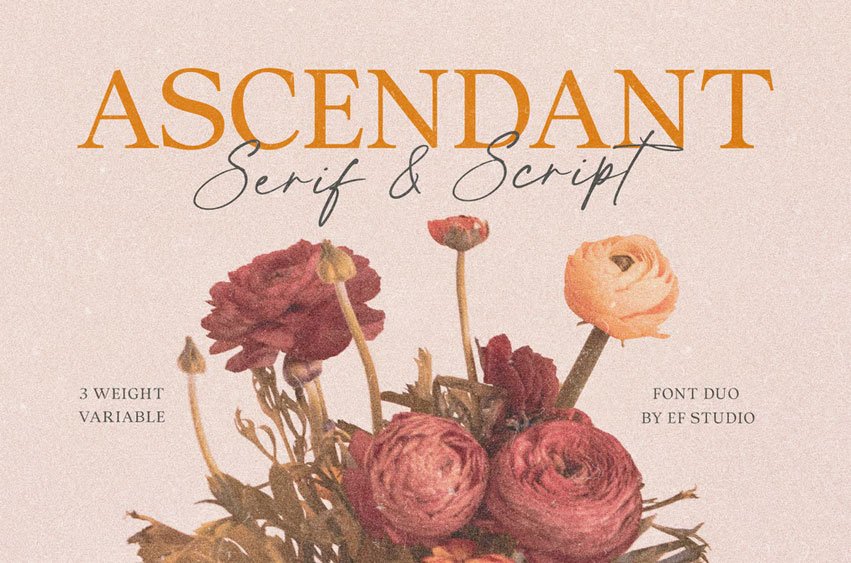
Ascendant Font is a refined serif and script font duo designed for elegance and versatility. The serif comes in three variable weights, offering flexibility across print and digital projects, while the script adds a graceful, handwritten touch.
Perfect for luxury branding, editorials, invitations, packaging, and logos that call for both sophistication and warmth.